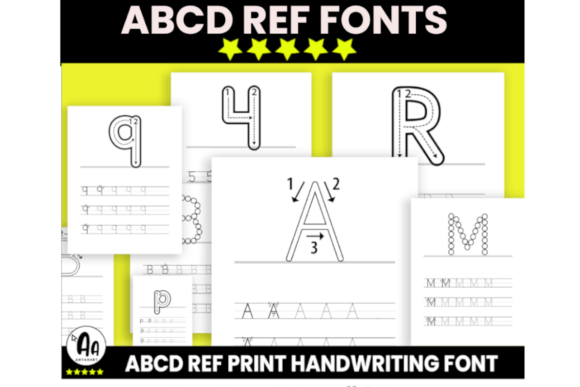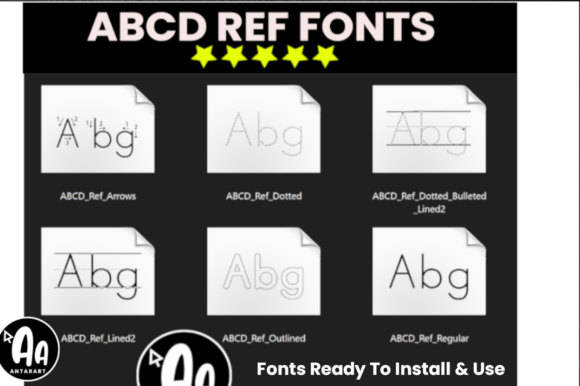
Unlocking the Power of Learning with the Abcd Tracing Alphabet Letters Bundle Font
Do you remember the joy of tracing alphabet letters as a child, the feel of the pencil gliding across the page, and the sense of accomplishment as each letter came to life? For many of us, this was the start of a lifelong love affair with learning, and it’s a moment we can recreate for others with the Abcd Tracing Alphabet Letters Bundle Font.
This innovative font is based on the D’Nealian Method, a popular teaching approach used in US schools, and is designed to help educators and parents create thousands of interactive worksheets. By using this font, you can make learning the print alphabet a fun and engaging experience for your students or children. As a designer, you’ll appreciate the versatility and customization options that come with this font, making it a valuable addition to your toolkit.
Abcd Tracing Alphabet Letters Bundle Font Features
- Font Bundle: Includes uppercase and lowercase letters, numbers, and special characters, making it a comprehensive tracing alphabet font bundle.
- Unique Characteristics: The font bundle includes tracing lines and dots to help children learn and practice writing, making it an ideal resource for educational purposes.
- Customizable: The font bundle can be easily customized to fit individual needs, allowing users to adjust the size, color, and style of the tracing lines and letters.
- Multi-Lingual Support: The font bundle supports multiple languages, including English, Spanish, French, and more, making it a versatile resource for educators and parents.
Designer Review: Abcd Tracing Alphabet Letters Bundle Font
I recently had the opportunity to work with the Abcd Tracing Alphabet Letters Bundle Font, and I must say it’s been a mixed bag. Let’s dive in and explore what works well and what doesn’t.
- The font is highly customizable, with a range of sizes and styles available.
- The alphabet tracing functionality is great for kids and beginners, making it easy to learn and practice letter recognition.
- The font is also highly legible, making it perfect for use in educational materials, worksheets, and other printables.
- The font is quite basic and lacks the sophistication and elegance of more premium fonts.
- The tracing functionality can be a bit finicky, and I’ve experienced some issues with accuracy and consistency.
- The font is also limited in terms of its usage, making it more suitable for educational purposes rather than general design projects.
Overall, the Abcd Tracing Alphabet Letters Bundle Font is a solid choice for educational designers and teachers looking for a simple, customizable font. However, it may not be the best option for more advanced designers or those seeking a premium font experience.
Use the Abcd Tracing Alphabet Letters Bundle Font for:
- Teaching children to recognize and write alphabet letters.
- Creating educational materials, such as worksheets and flashcards.
- Designing branding and marketing materials for children’s products and services.
The Abcd Tracing Alphabet Letters Bundle Font is commonly used for:
- Preschool and kindergarten educational materials.
- Children’s book illustrations and design.
- Preschool and kindergarten branding and marketing materials.